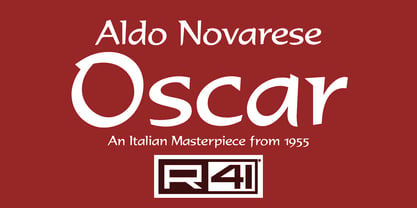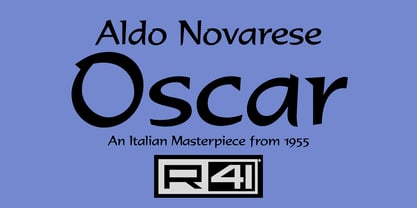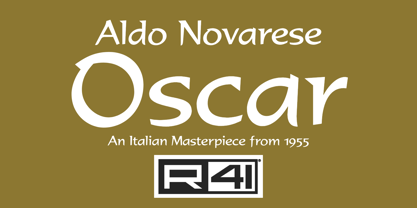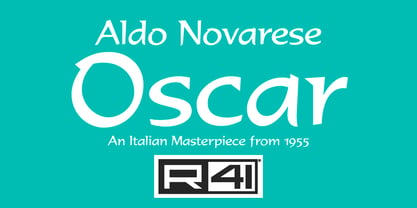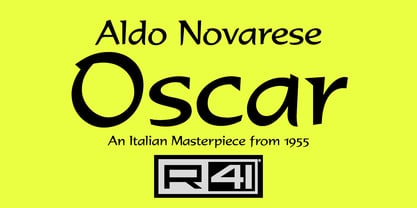
R41 Oscar
The R41 Oscar Font Family was designed by Aldo Novarese, Ariel Brandolini, Daniele Medina and published by Reber R41. R41 Oscar contains 1 styles. More about this family
The oroiginal version of Oscar was designed by Aldo Novarese for Fonderia Nebiolo. This typeface evokes the past through the rhythm of its fully rounded curves, its triangular serifs, and the distinctive beginnings and endings of certain letters. It bears a certain resemblance to the Insular semi-uncial scripts of the 8th century, which contributed significantly to the development of Humanist writing many centuries later.
Designers: Aldo Novarese, Ariel Brandolini, Daniele Medina
Foundry: Reber R41
Reber R41 is an Italian company founded in Spresiano, Treviso, in 1960 by Renato Bernardi, inventor of his own method of dry transfer type, and still run by his family. Since 1969, R41 has produced dry-transfer adaptations of iconic designs from Nebiolo Type Foundry, including its most experimental creations designed for the booming Italian advertising industry. Designer Aldo Novarese, who retired from Nebiolo in the early ’70s, worked with Reber R41 for years afterward designing brands, catalogues, advertising and of course…typefaces. Now Reber R41 provides new digitizations of the work of Novarese and Nebiolo of Turin, brought together in a unique collection that preserves the best of historic Italian typography of the twentieth century.